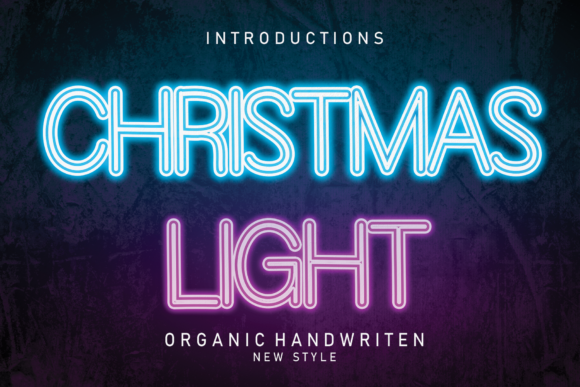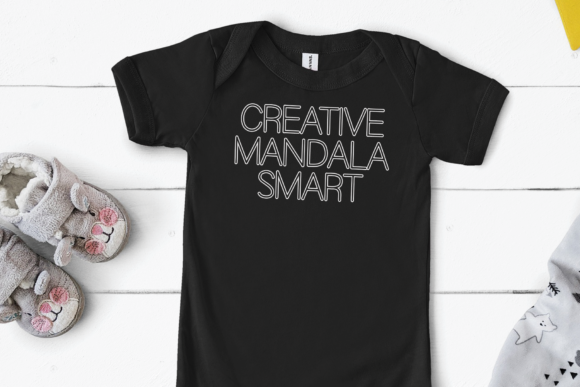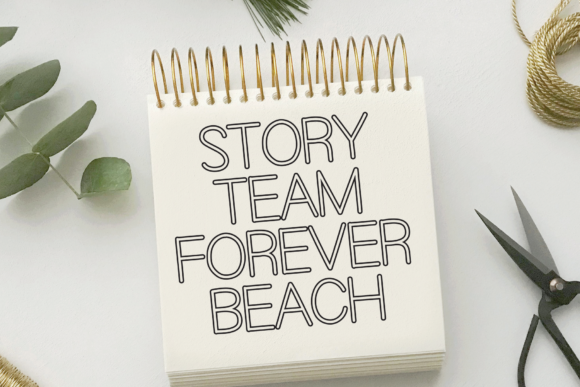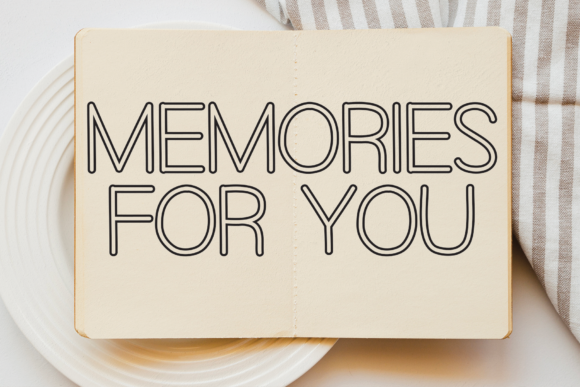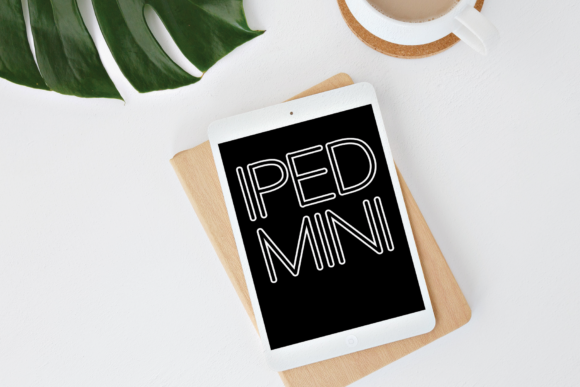
Christmas Light Font
About Christmas Light Font
Christmas Light is a cool and adaptable handwritten font. No matter the topic, this font will be an incredible asset to your fonts’ library, as it has the potential to elevate any creation.